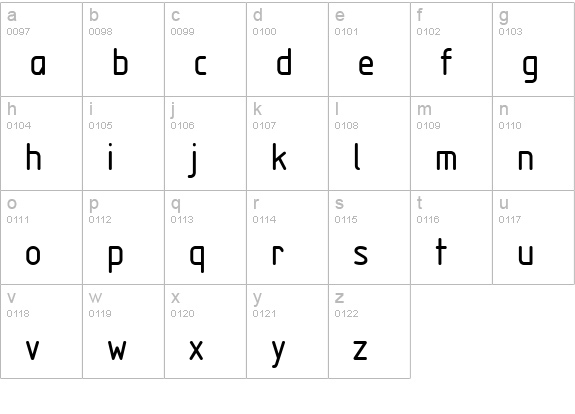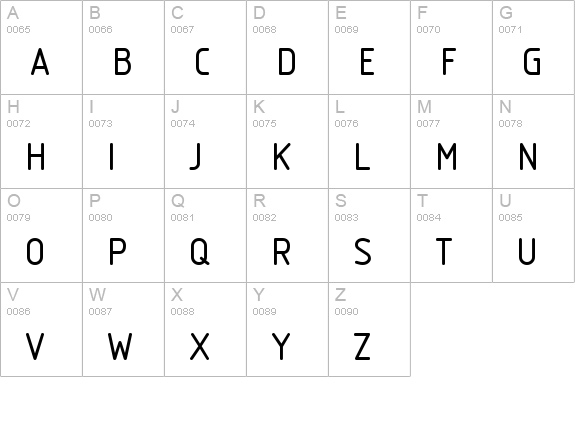
PFMecanorm Regular Font Details
PFMecanorm Regular is the standard, neutral variant in the PFMecanorm typeface family \xE2\x80\x94 well suited to general body text, paragraphs, and standard typographic work.
PFMecanorm Regular is a versatile and modern typeface that exudes elegance and sophistication. Its clean lines and balanced proportions make it perfect for a wide range of design projects, from branding to editorial layouts. The font's sleek and professional appearance makes it a timeless choice for any design application. What sets PFMecanorm Regular apart is its ability to seamlessly blend into various design styles, whether it be for print or digital media. With its legible letterforms and distinct character shapes, this font offers a unique touch to any project it is applied to. The best part about PFMecanorm Regular is that it is completely free to download at FontsMarket.com. This means you can effortlessly incorporate this stunning font into your designs without any cost. Don't miss out on the opportunity to enhance your projects with the beauty and versatility of PFMecanorm Regular – download it today and elevate your design game!